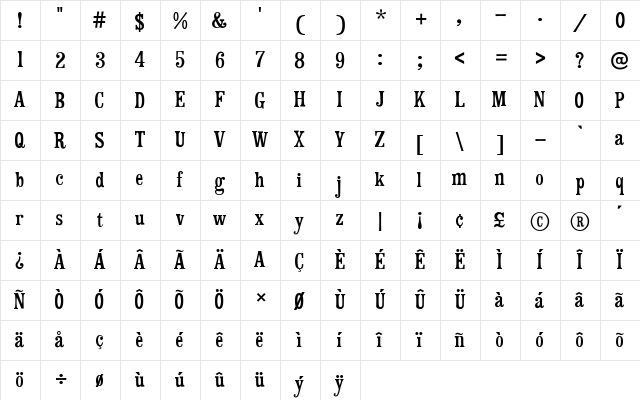
Complete Mister Sinatra Slim Slim glyph index. Displaying only characters natively supported by Mister Sinatra Slim Slim font.
Mister Sinatra Slim is a composed and adaptable typeface that performs quietly and consistently across a wide range of design contexts.